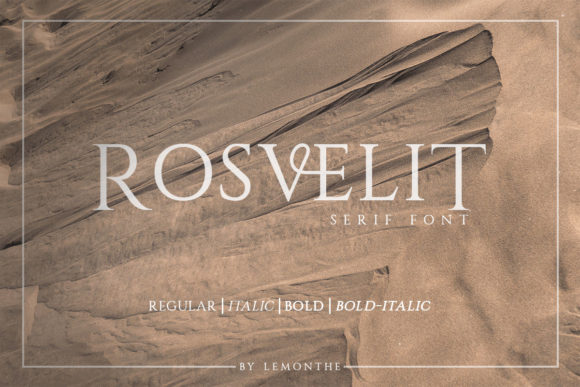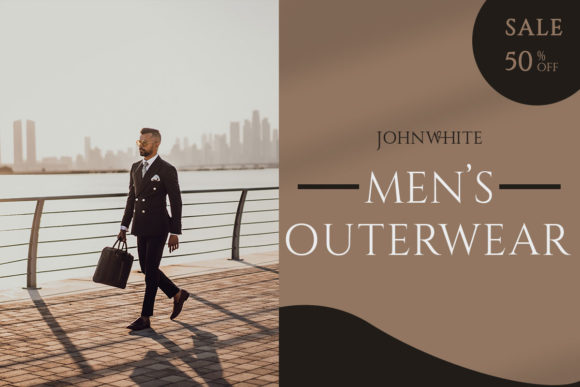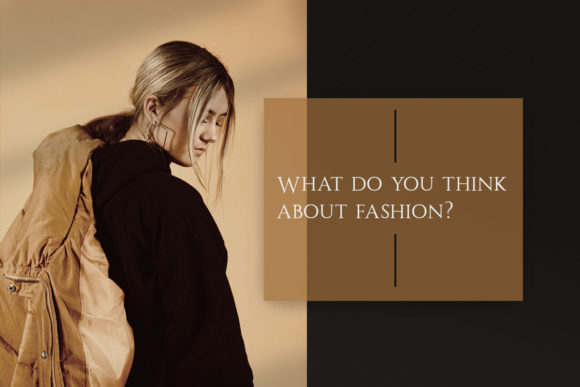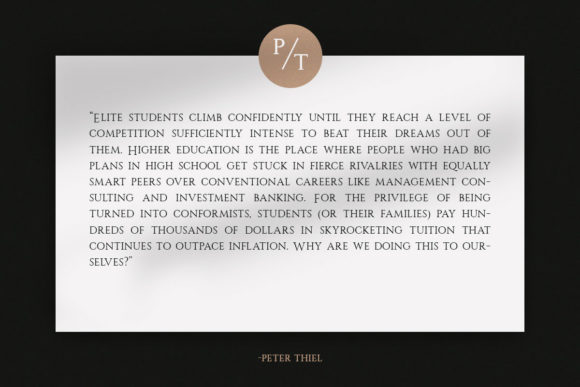
Rosvelit Font: Elegant Serif for Modern Logo Design & Branding
About the Rosvelit Font
Explore the possibilities with Rosvelit Font, a font that offers both beauty and functionality. Rosvelit is a simple yet incredibly elegant serif font. It can easily be matched to an incredibly large set of projects, so add it to your creative ideas and notice how it makes them stand out!
Rosvelit’s elegant serif design excels in headlines, logos, and short-form text for branding materials and packaging. Its refined appearance makes it suitable for projects requiring a touch of sophistication, such as high-end product launches or sophisticated event invitations. However, its delicate stroke weight isn’t ideal for body text or long paragraphs, where readability might suffer.
For optimal impact, pair Rosvelit with a clean sans-serif like Open Sans for body copy, or a geometric sans-serif for a more modern feel. A playful script font could add a touch of personality to invitations or packaging designs. Avoid pairing it with overly decorative or heavy fonts, as this could clash with its understated elegance.
Rosvelit projects an air of refined sophistication and subtle confidence. It’s best suited for brands emphasizing quality, luxury, or timeless style.
Rosvelit Font Usage Examples
Rosvelit Font Example